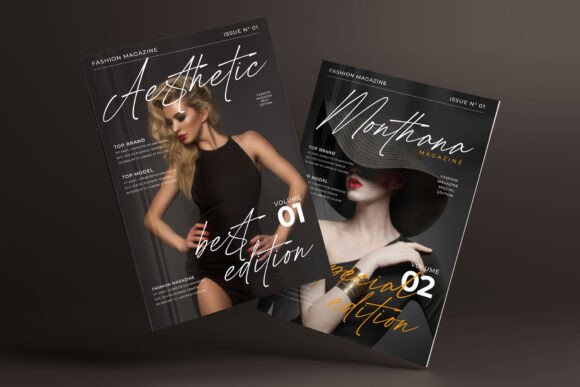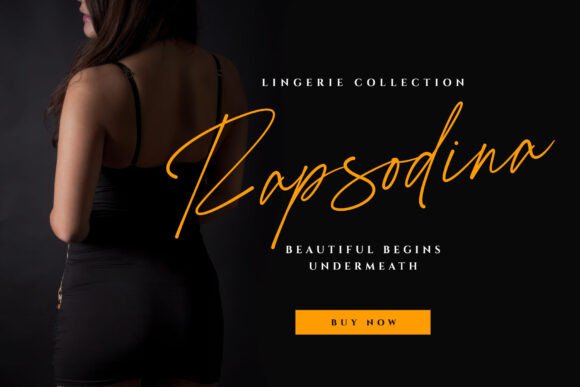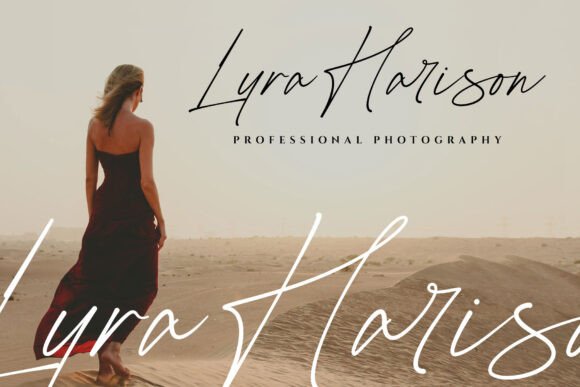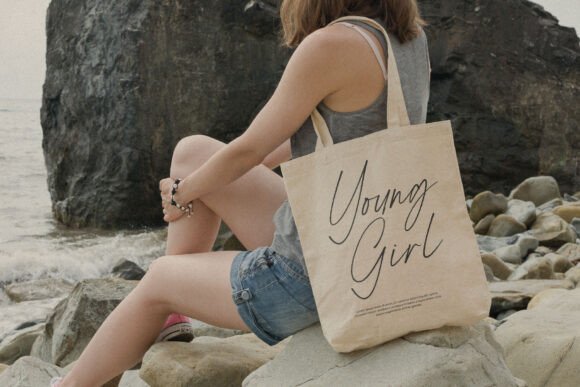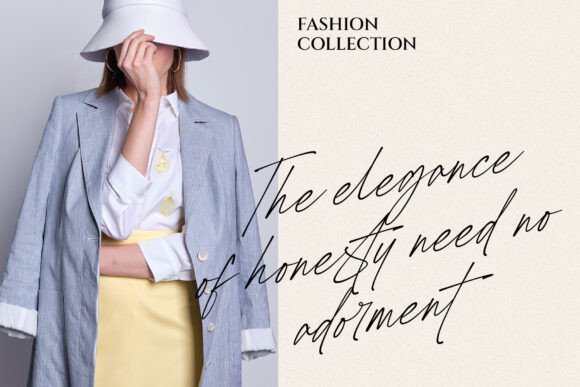
Discover Your New Favorite Font: Batherga Font
As a designer, you’ve probably had those moments when you’re brainstorming ideas, and suddenly, a concept just clicks. The fonts start flowing, and you envision your project taking shape. It’s exhilarating, right? But sometimes, finding the perfect font to match your vision can be the missing piece. That’s where Batherga Font comes in – a beautiful, handwritten font that’s poised to become your new go-to.
Batherga Font is more than just a font; it’s an artistic expression that combines classic calligraphy with modern flair. Its elegant, flowing lines make it perfect for adding a touch of sophistication to your designs. Whether you’re working on a wedding invitation, a logo, or a marketing campaign, Batherga Font will elevate your projects to new heights. Its versatility and charm make it a valuable asset for designers looking to add a personal touch to their work.
Batherga Font Key Features
- Font Family: Batherga is a unique, hand-drawn font that offers a distinctive, elegant appearance.
- Unique Characteristics: Batherga’s hand-drawn design features intricate details, subtle texture, and a touch of elegance, setting it apart from more traditional font styles.
Batherga Font Review
I recently had the chance to work with the Batherga font, and I must say it’s an interesting choice. Here are my thoughts.
- The Batherga font has a unique, handwritten feel that can add a touch of personality to your designs.
- It comes in a range of weights, from light to bold, making it versatile for different applications.
- The font is highly legible, even at smaller sizes, making it a great choice for body text or captions.
- The Batherga font may not be the best choice for formal or professional designs, as its casual, handwritten feel may not be suitable for such applications.
- The font’s irregularities can make it difficult to pair with other fonts, as it may clash with more formal or geometric fonts.
- The font’s bold weight can sometimes appear overly condensed, which may affect readability.
Overall, I think the Batherga font is a great choice for designers looking to add a touch of personality to their designs. While it may not be the best choice for every project, it’s definitely worth considering for projects that require a more casual, handwritten feel.
Batherga Font is ideal for creative projects, such as:
- Designing a logo or branding materials.
- Creating a visually appealing social media post or advertisement.
- Adding a touch of elegance to a presentation or report.
For optimal results, use Batherga Font in conjunction with high-contrast backgrounds and bold colors to create a striking visual effect.